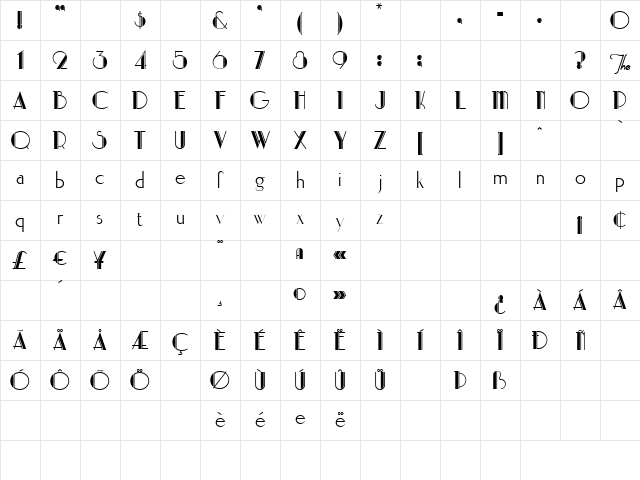
ParkLane Revised Regular Free Font
ParkLane Revised Regular
Design Context for ParkLane Revised
ParkLane Revised is a composed and adaptable typeface that performs quietly and consistently across a wide range of design contexts.